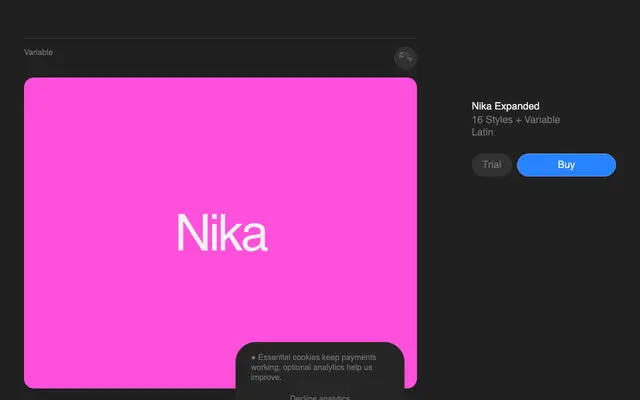
Nika Expanded
Superior Type · Rostislav Vaněk
An expanded sans-serif with deliberate stroke modulation that introduces depth and tension without veering into ornament.
Designed by Rostislav Vaněk in collaboration with Matyáš Machat and Petr Kučera, Nika Expanded applies contrast and modulation within strokes to a broadly expanded sans-serif structure, creating a sense of movement uncommon in the genre. Sixteen static styles run from ExtraLight to Black with matching italics, and a variable font is included. OpenType features cover oldstyle figures, fractions, discretionary ligatures and alternate single- and double-storey letterforms.
A sans-serif with stroke modulation and contrast rather than strict uniformity, placing it closer to a humanist or modulated grotesque; the expanded width variant gives it a distinctive display character.